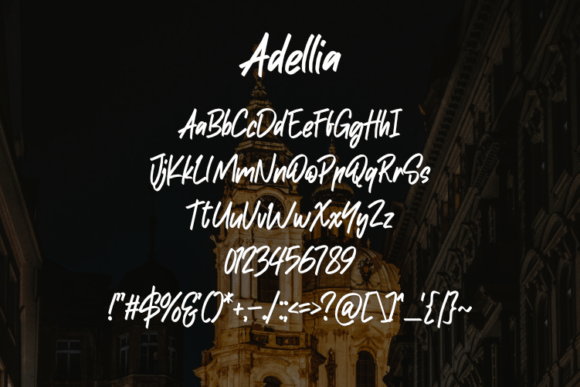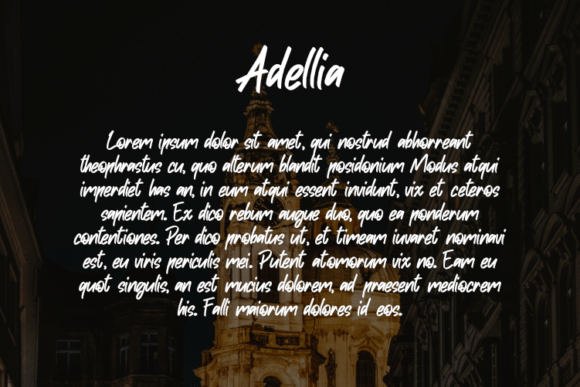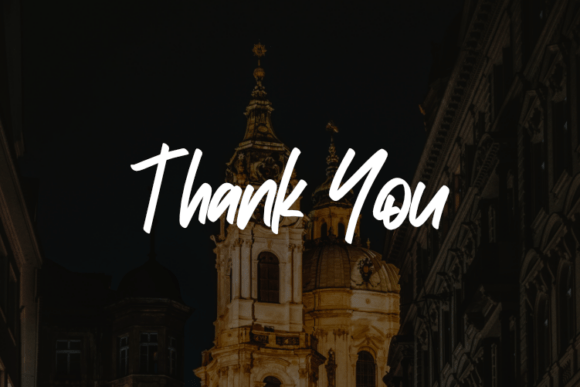
Unleash the Power of Typography with Adellia: Your Go-To Font for Fashion and Product Design
I’ll never forget the time I was working on a fashion design project, and my client asked me to create a bold, eye-catching logo that would make their brand stand out. I spent hours scouring the internet for the perfect font, but nothing seemed quite right. That was until I stumbled upon Adellia, a game-changing font that has since become my go-to for all types of designs.
An Honest Review of Adellia
What I Love About Adellia ✨
- ✅ Unmatched adaptability: Adellia effortlessly integrates with any software, making it a versatile font for various design projects.
- ✅ Beautifully crafted: Adellia’s elegant lines and curves make it perfect for creating chic t-shirts, innovative products, and more.
- ✅ Limitless design possibilities: With Adellia, you can create a wide range of designs, from minimalist to elaborate, without compromising on style or quality.
- ⚠️ Limited availability of certain glyphs: While Adellia offers a wide range of glyphs and stylistic alternates, some users may find that certain characters are not available.
- ⚠️ May require adjustment for certain design styles: Adellia’s elegant lines and curves may require adjustment to suit certain design styles, such as bold or edgy designs.
The Designer Inspiration Behind Adellia
Adellia was designed with the fashion and product design industries in mind. Its creator, a renowned typographer, drew inspiration from the world of high-end fashion and luxury brands. The result is a font that exudes elegance, sophistication, and style.